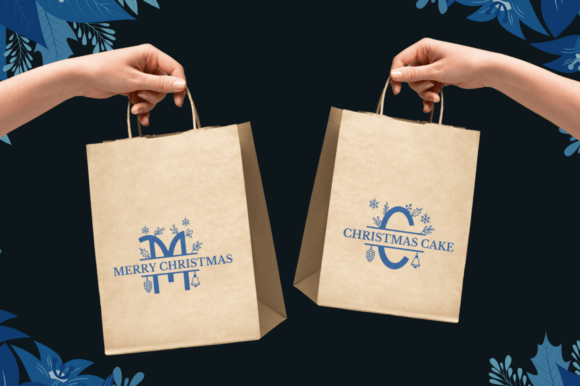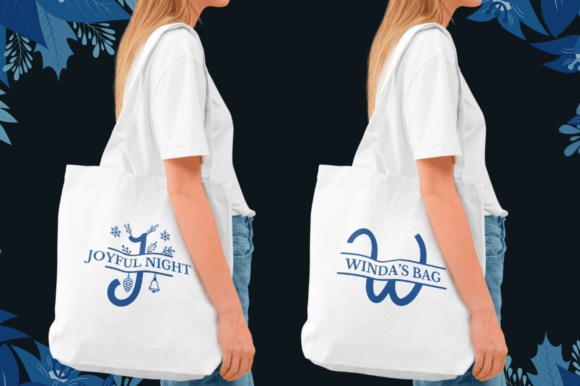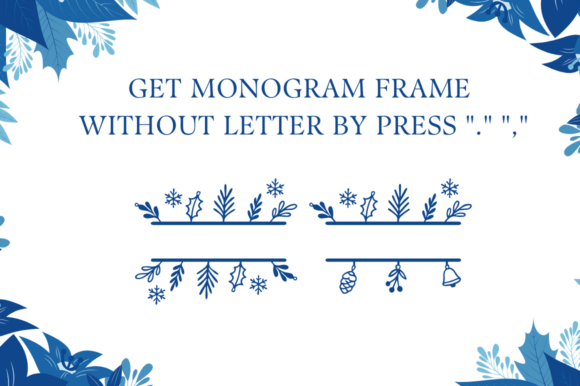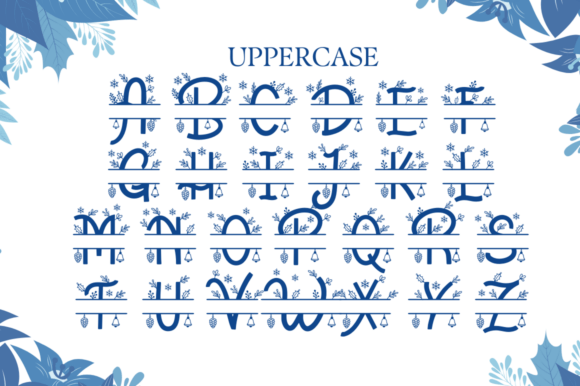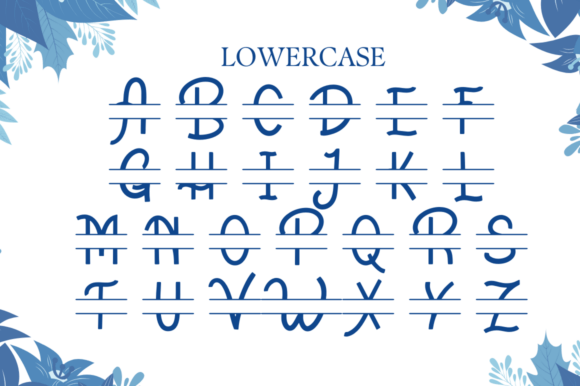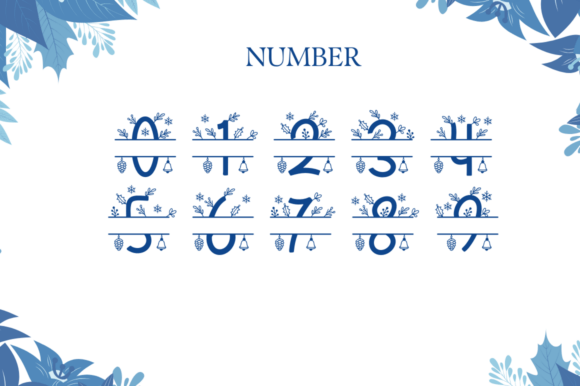
Introduction to Salju Flower Split Monogram Font
Salju Flower Split Monogram Font is a winter-themed split letter monogram typeface .
It includes uppercase, lowercase, and numerals, each decorated with snowy florals, holly, pinecones, bells, and sprigs The built-in split bar lets you place a name or short phrase in the center for fast, elegant personalization.